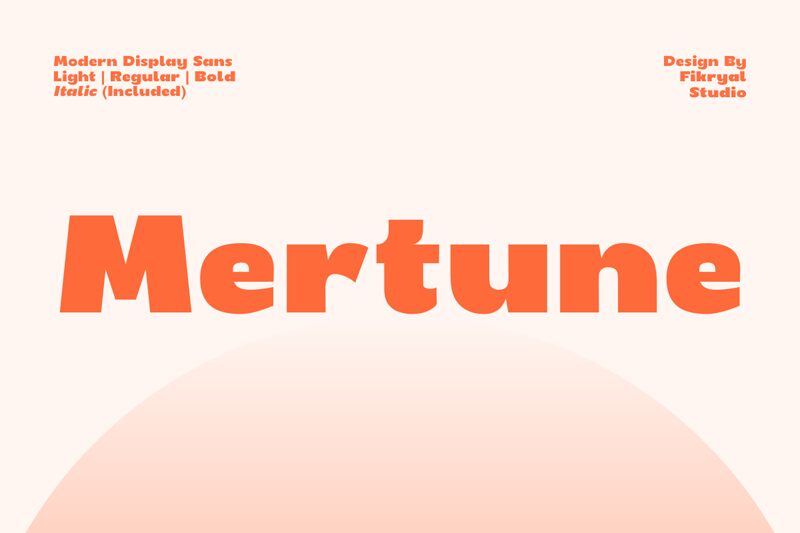
Mertune font family by Fikryal Studio is a modern yet simple sans-serif that feels approachable and friendly. This free font typeface comes in 6 styles that provide versatility and allow you to create unique combinations in all your projects. It’s a contemporary font family whose versatility makes it a perfect choice to employ in various designs and contexts.
Thanks to the font’s modern and informal style, it can be used in branding designs, logo creation, social media platforms, magazine designs, and website designs. Other media like online journals, posters, and even packaging designs can also benefit from the familiarity that Mertune exudes to present the intended message in a welcoming manner.